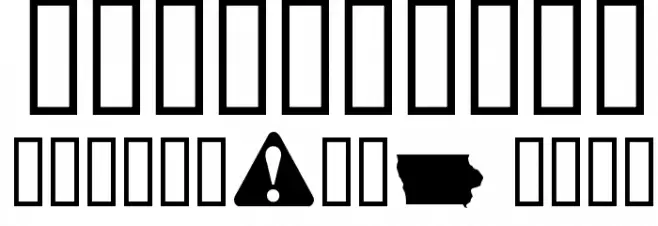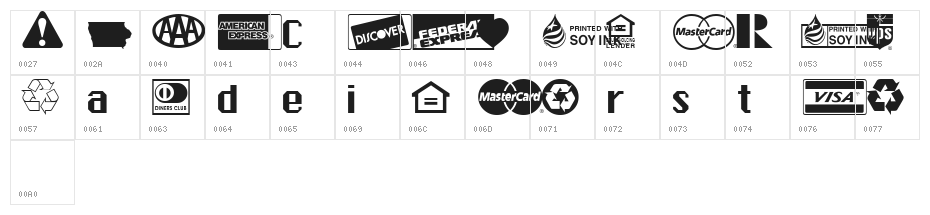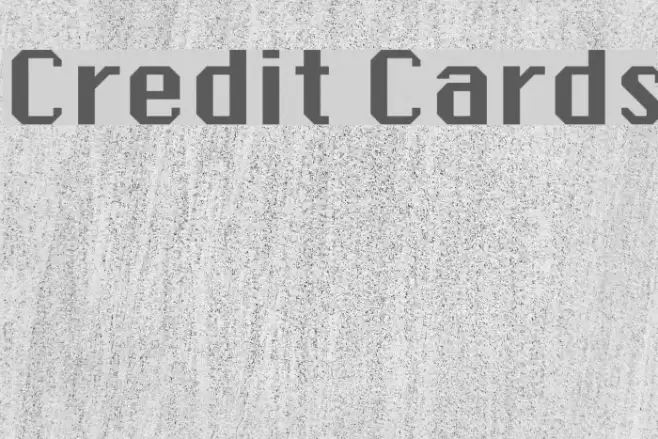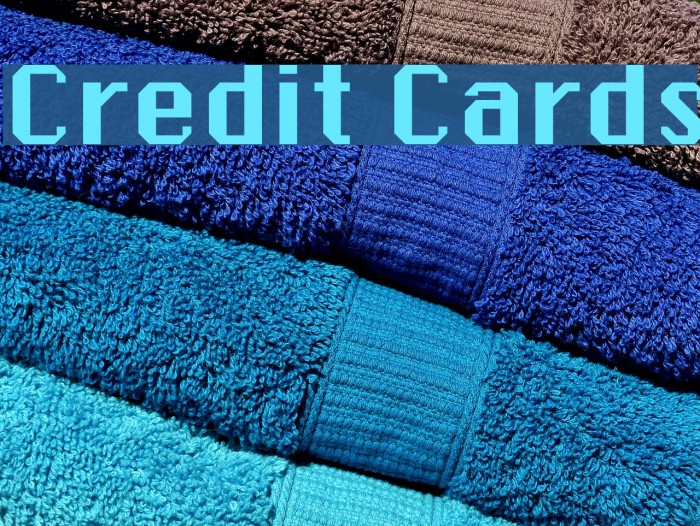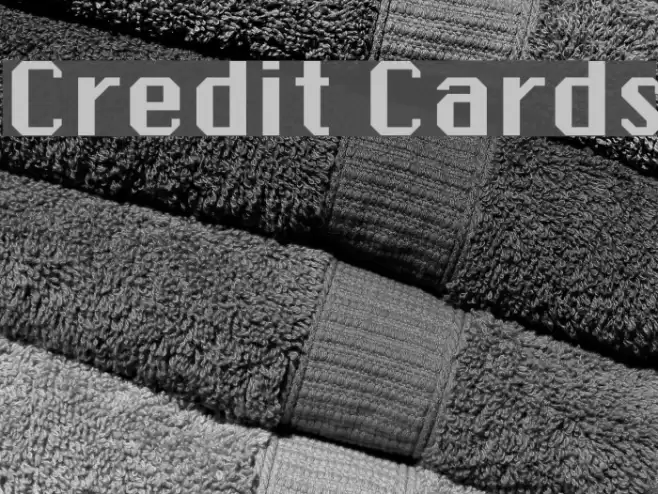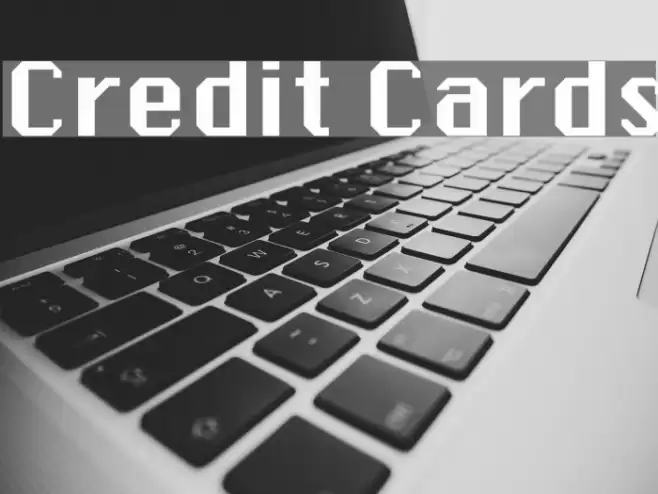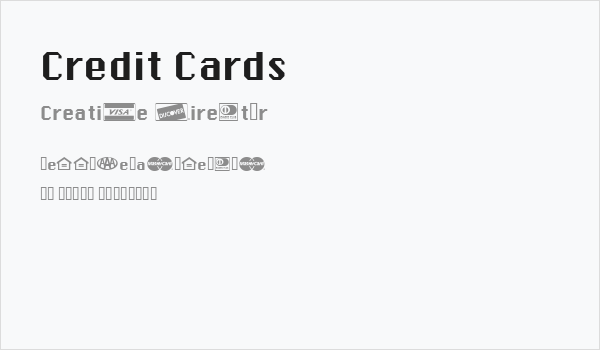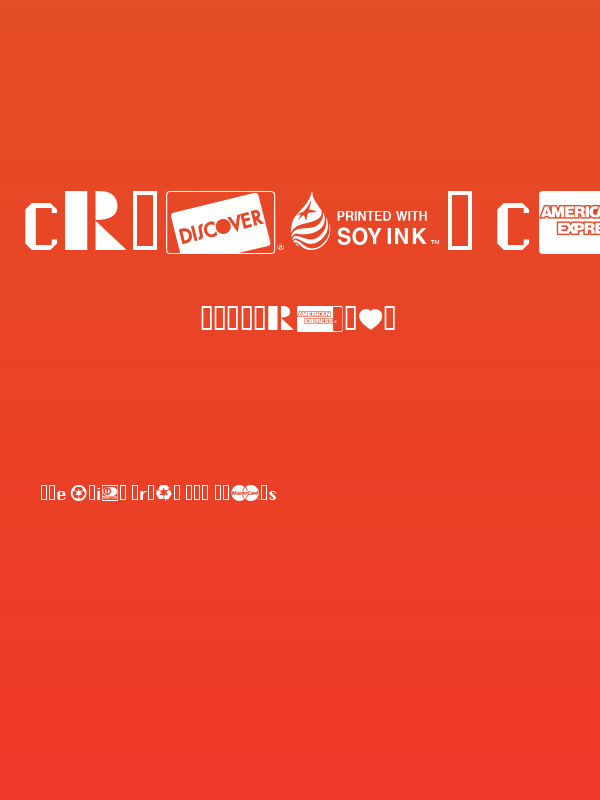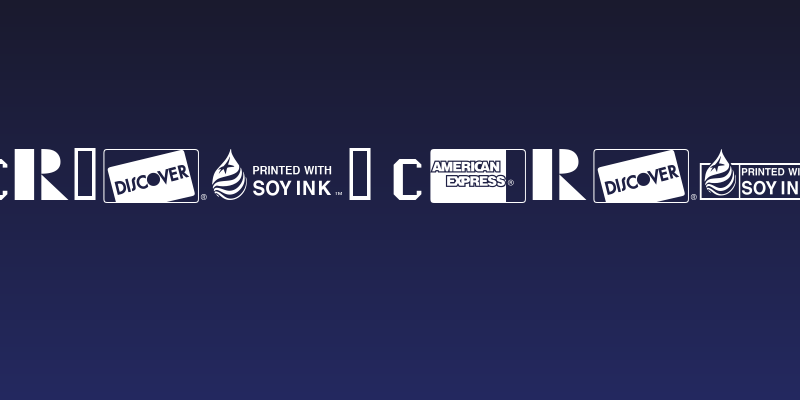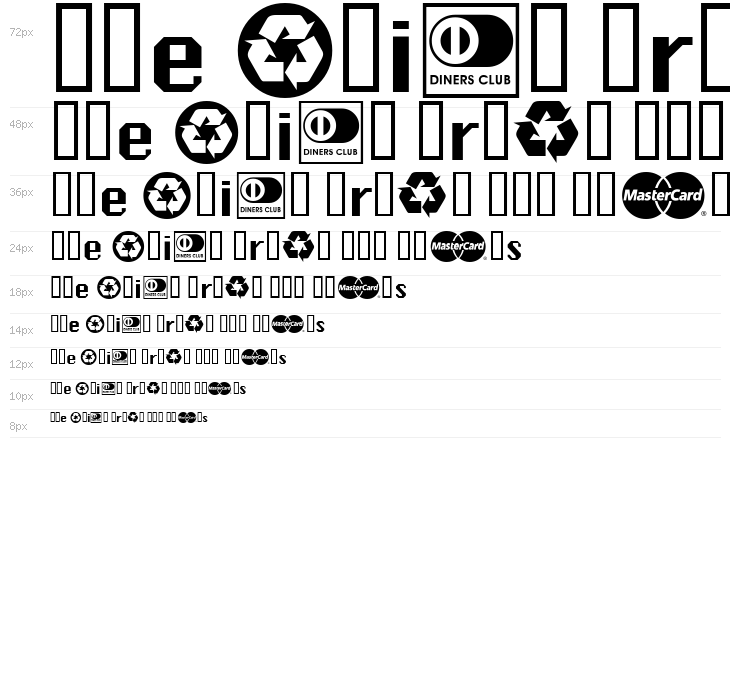
Credit Cards Font
Credit Cards Description
A decorative dingbat font featuring various credit card logos, recycling symbols, postal logos, and other commercial icons, mixed with a geometric, blocky sans-serif alphabet and numerals. The glyphs are bold and have a strong visual presence, with some icons enclosed in rectangles or circles.
| Overall Style | Decorative, Commercial, Modern |
| Use Case | Icons, Logos, Informational graphics, Display purposes |
| Proposed Projects | Payment method icons, e-commerce websites, informational graphics, signage, branding for financial or shipping services. |